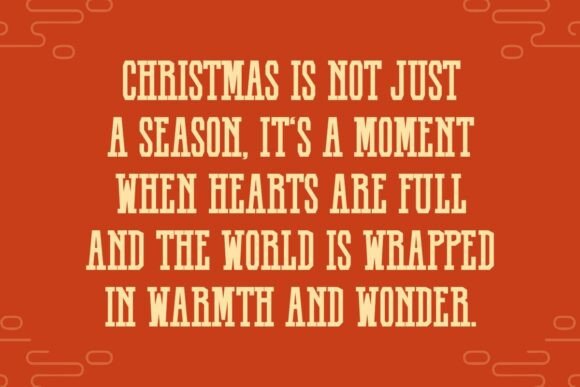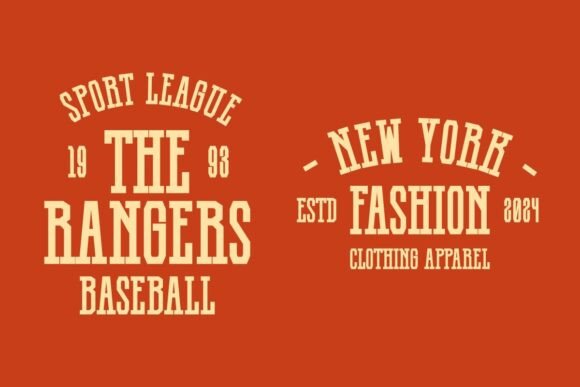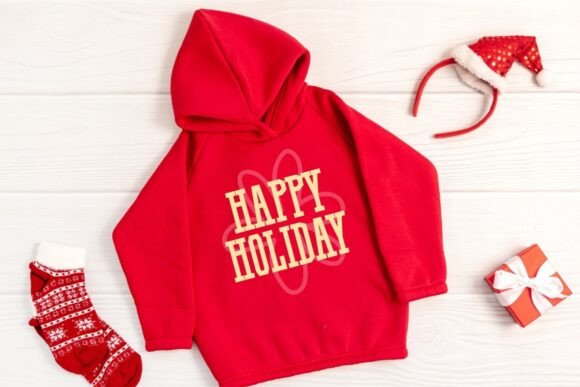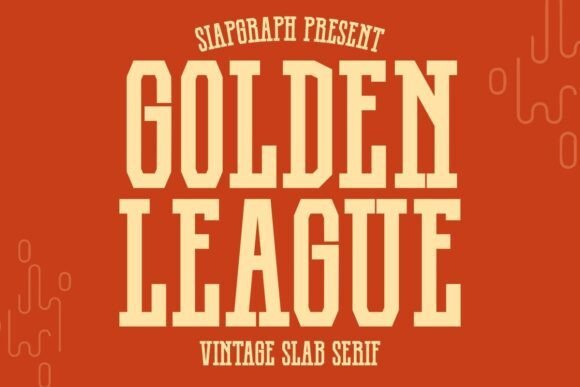
Introduction to Golden League Font
Golden League is a clean and bold vintage slab serif font inspired by modern design with a festive Christmas twist.
Perfect for creating eye-catching quotes, posters, apparel mockups, and merchandise like mugs and tote bags, Golden League combines timeless style with holiday charm, making it a versatile choice for all your seasonal and creative projects .
Key Features of Golden League Font
Why Choose Golden League Font?